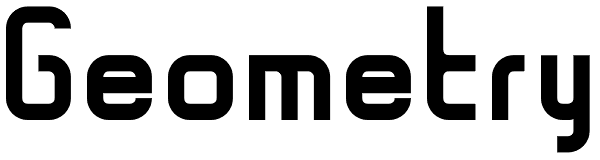
Geometry
The GEOMETRY Font is based on a specific grid. The grid is made of vertical, horizontal, diagonal lines and circles. Every single letter, number and symbol fits perfectly in the grid, no exception! The GEOMETRY Font includes uppercase, lowercase...